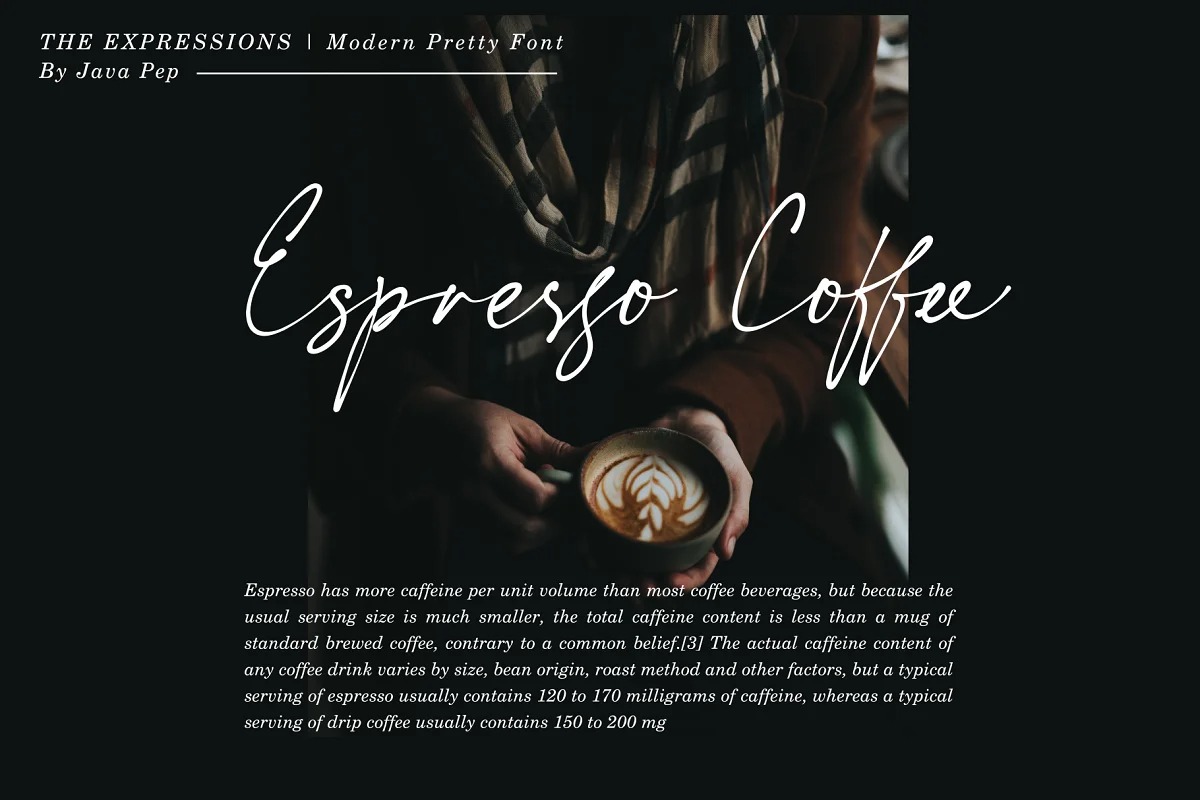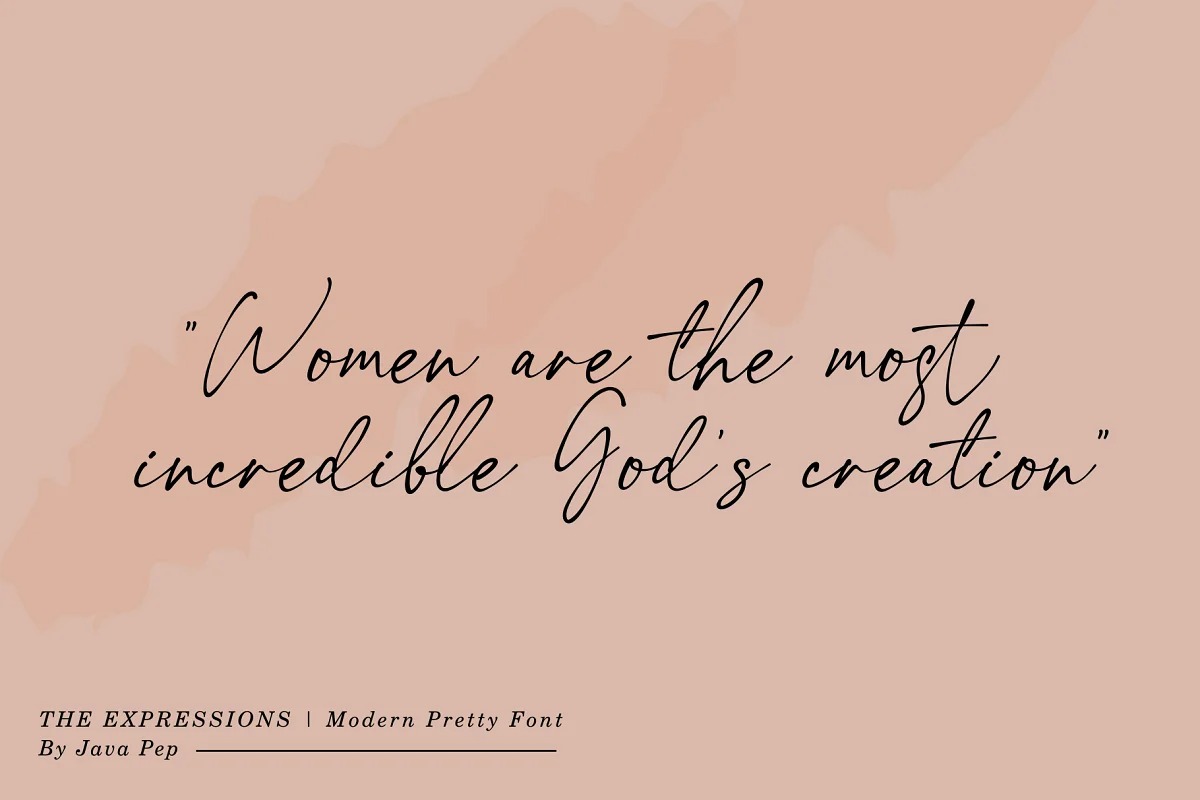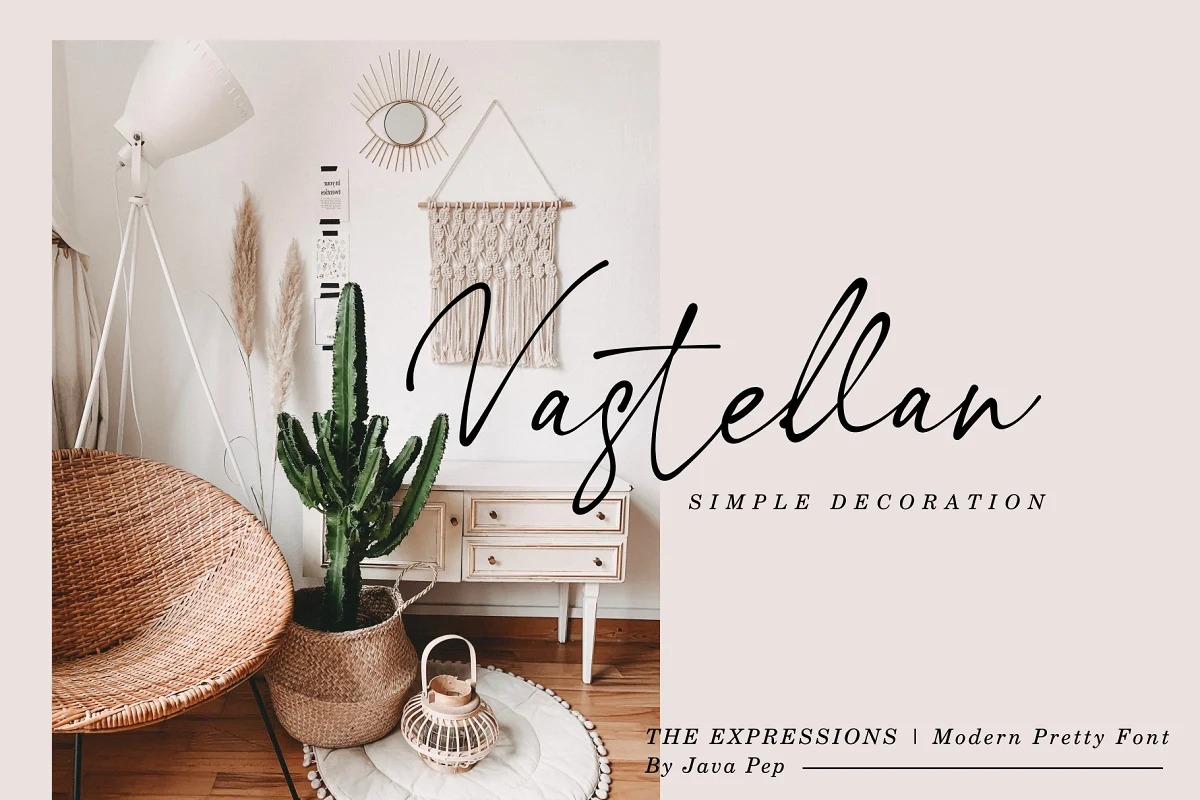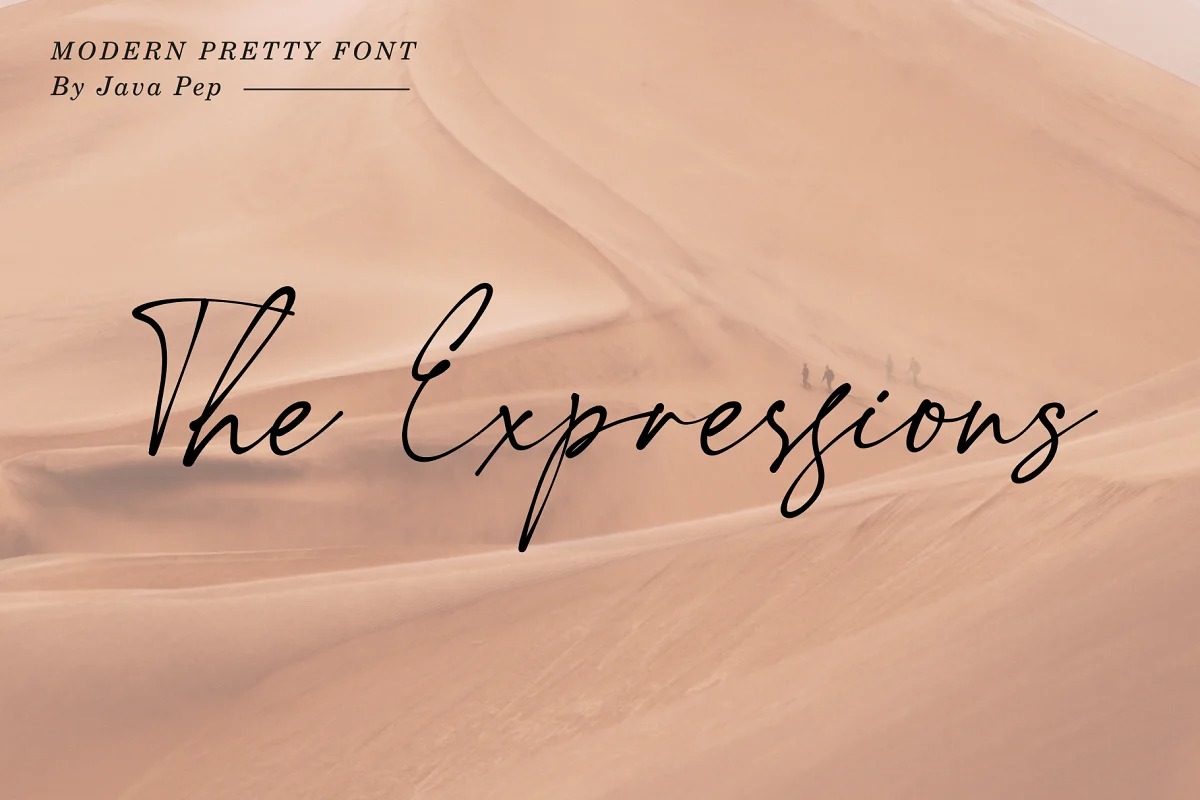
The Expressions Font
The Expressions Handwritten Font is a modern line natural handwritten Typeface crafted & designed by Java pep. This font comes with modern and pretty looks that will express your design more standout and elegant. Let’s express your mind with the expressions font